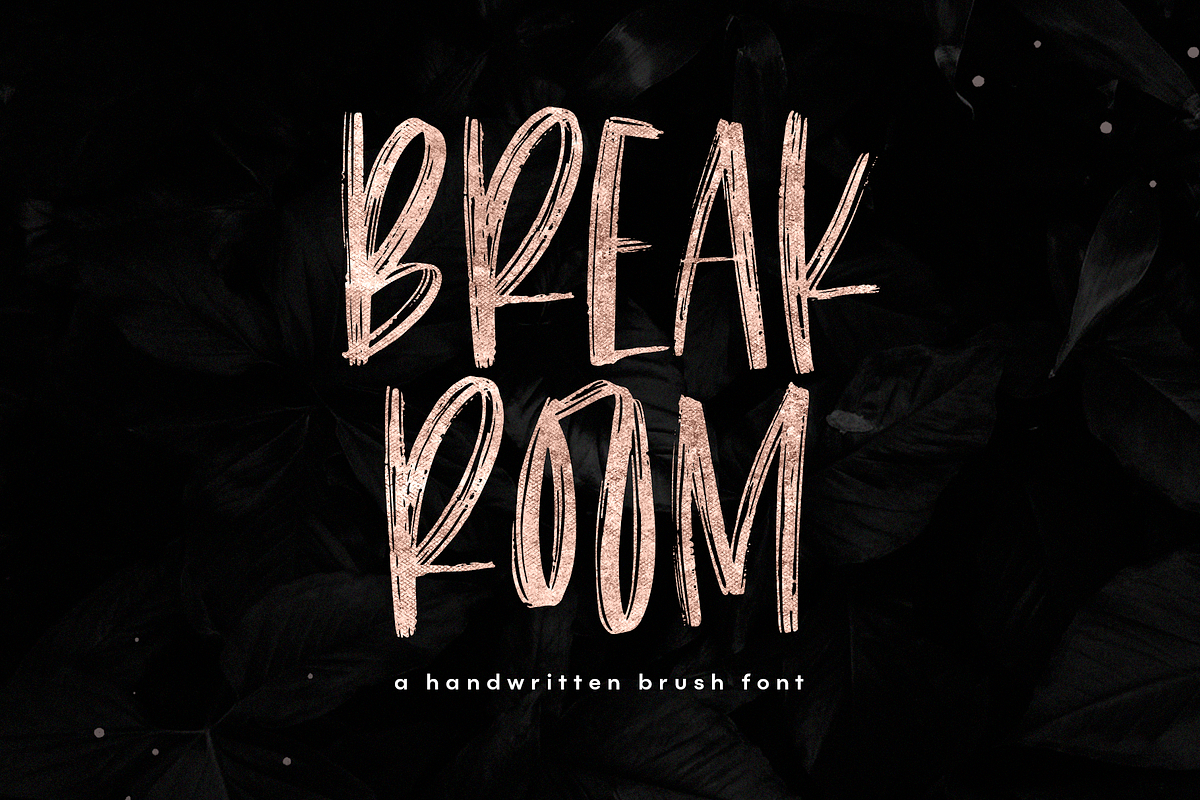
Breakroom - Handwritten Brush Font Free Download
Add bold personality to your projects with Breakroom – Handwritten Brush Font Free Download, a dynamic typeface full of energy and character. You need to purchase this font for commercial use. However, you can test it out in personal or demo projects using Breakroom – Handwritten Brush Font Free Download. With its expressive brush strokes and raw, handcrafted feel, this font is perfect for posters, apparel, branding, social media graphics, and bold headlines. Designers love its edgy, urban style that brings a natural and artistic vibe. Download Breakroom – Handwritten Brush Font Free Download today and make your designs stand out with creative impact.